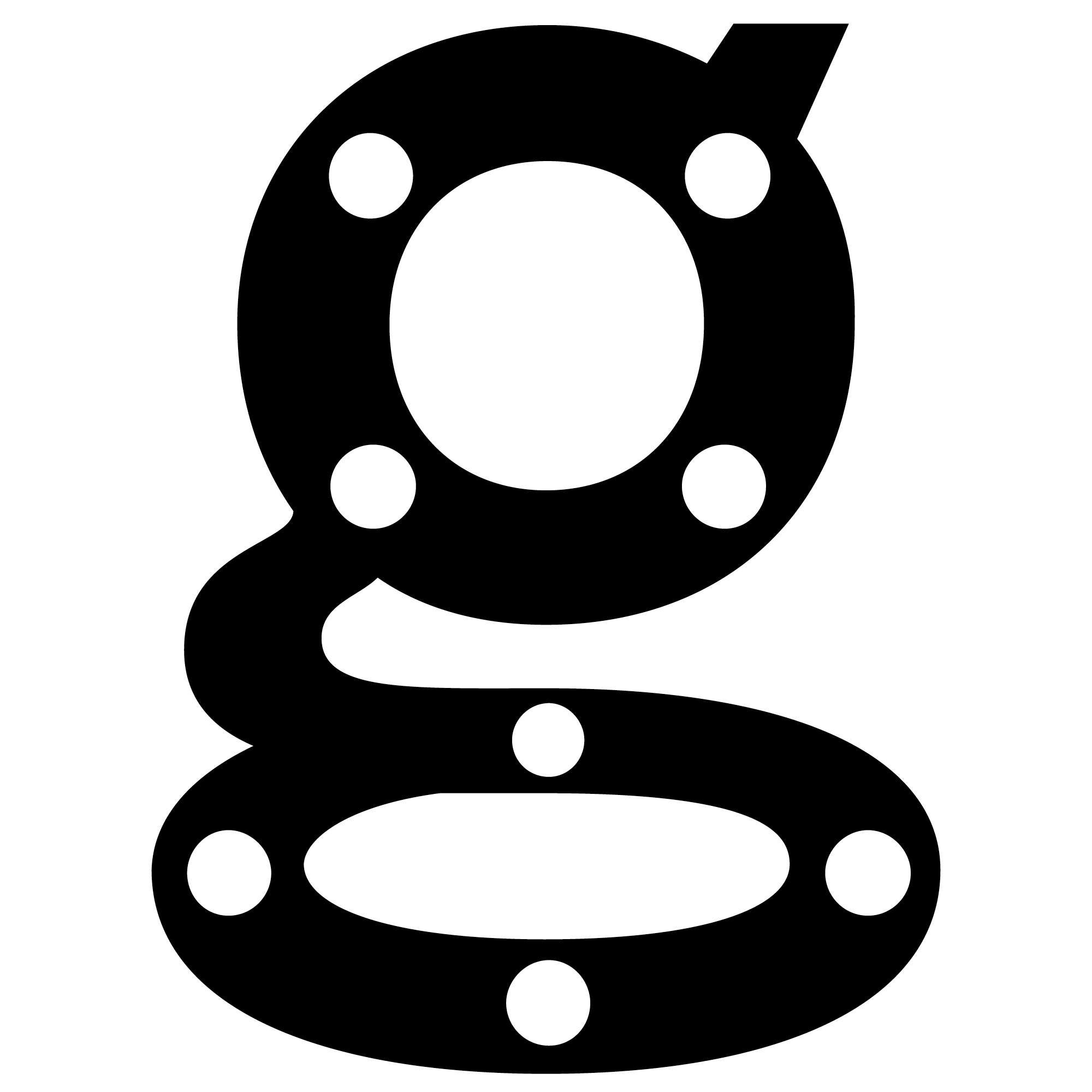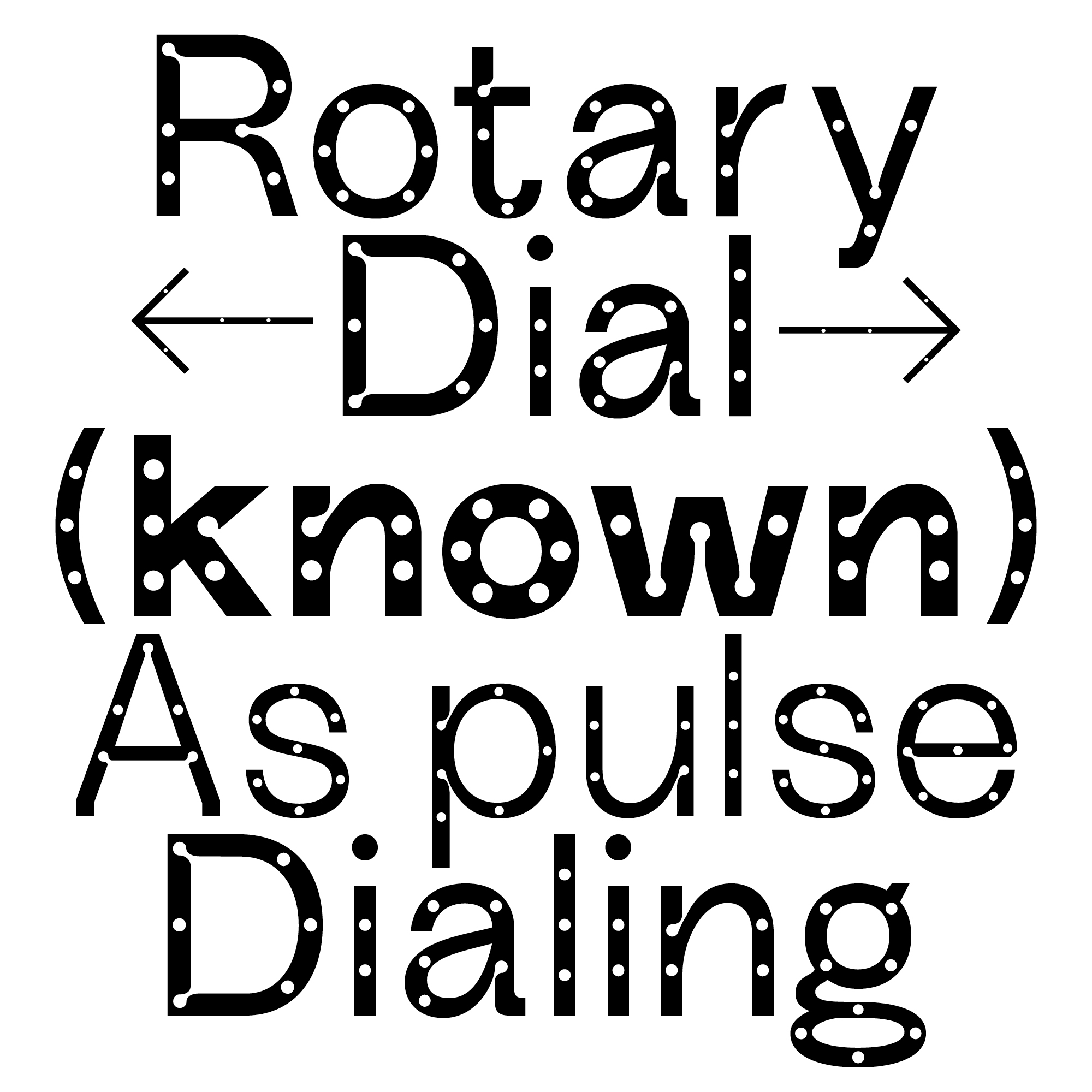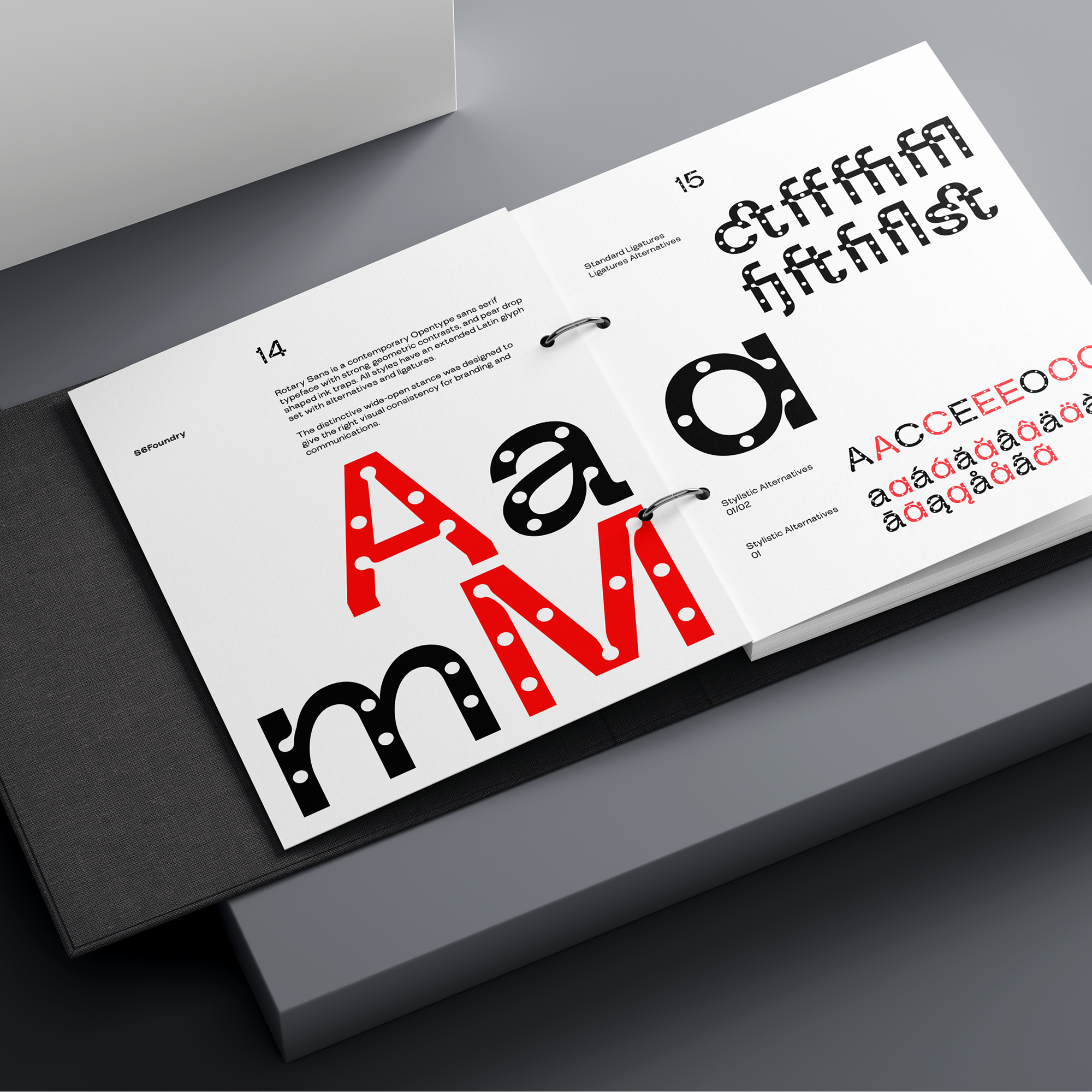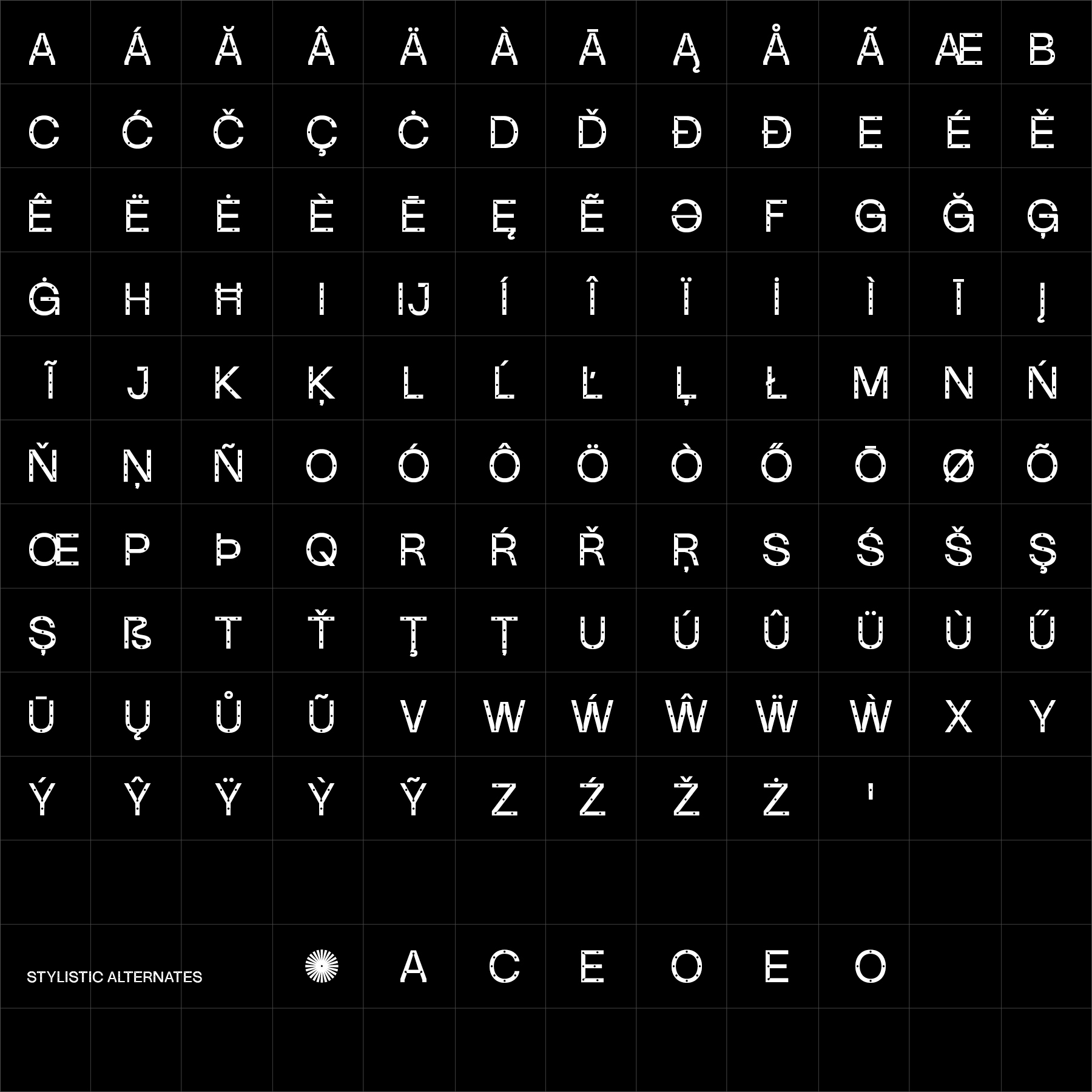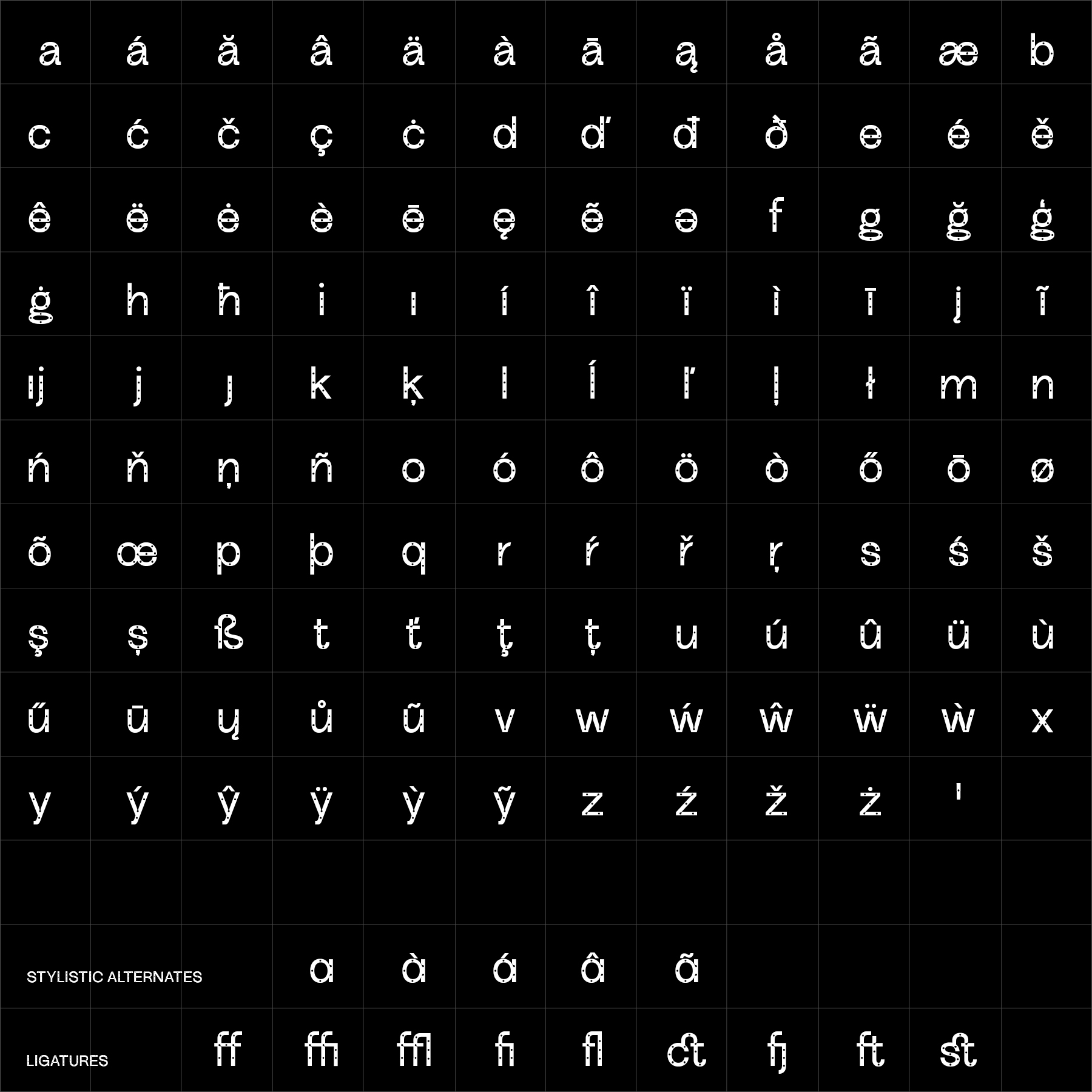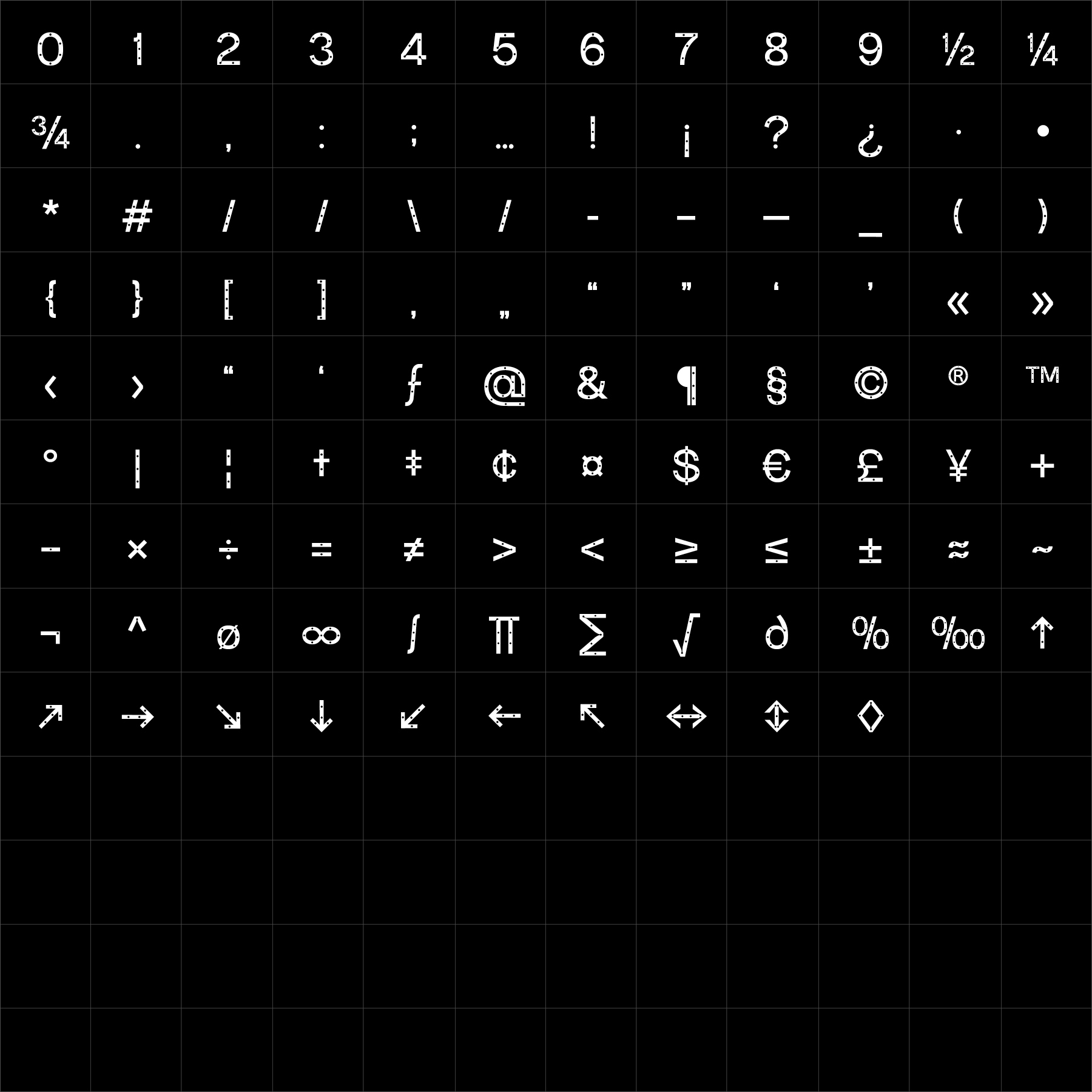
Rotary Sans
Rounded Sans Serif Font for Branding, Packaging and Digital Design
7 Weights
Light
Book
Regular
Medium
Bold
Rotary Sans is a contemporary sans-serif designed with rounded geometry, smooth rhythm, and a strong sense of movement. Built from soft curves and balanced proportions, the family creates a typographic voice that feels modern, approachable, and visually fluid across both print and digital environments. The rounded construction gives the typeface warmth and accessibility while maintaining a clean and disciplined structure. Subtle geometric detailing and carefully controlled spacing allow the family to remain highly readable without losing its distinctive visual softness. Rotary Sans performs naturally across branding, packaging, editorial systems, interface design, and lifestyle communication where typography needs to feel contemporary, friendly, and refined without becoming overly playful. Designed for modern communication systems seeking clarity with softer visual character, Rotary Sans offers a versatile sans-serif family with smooth rhythm, balanced structure, and a calm contemporary presence.